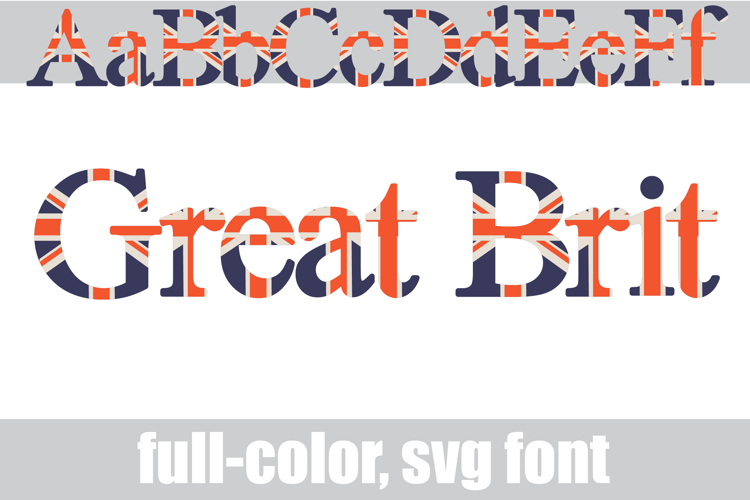
Great Brit Color Font
This full-color, serif font sports the red, white and blue stripes of Union Jack flag. There is an alt case of opposite colors of each letter that you can access through your system's character map.